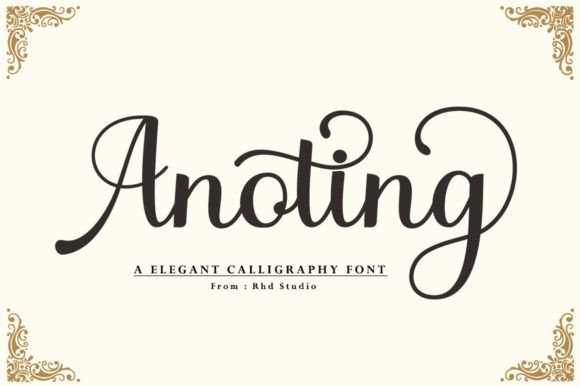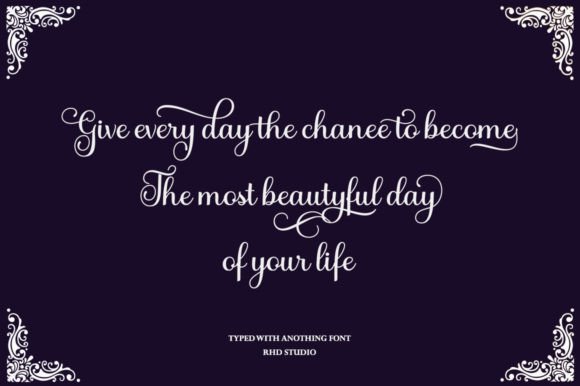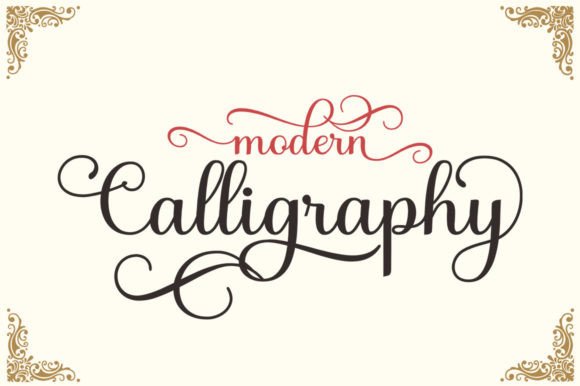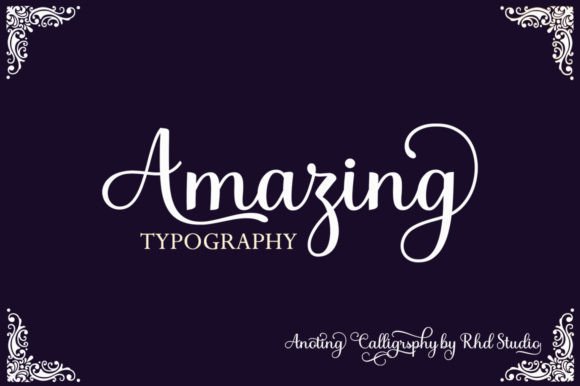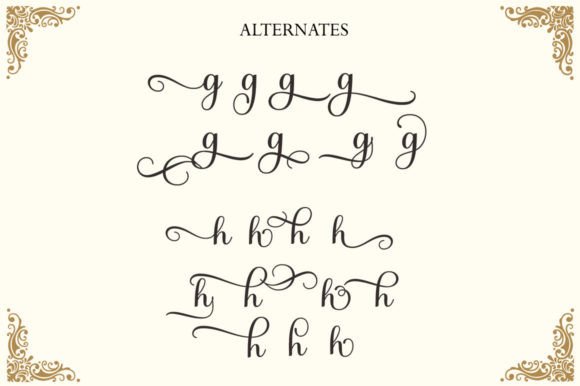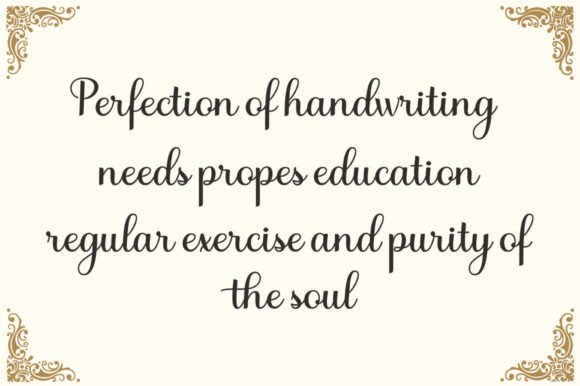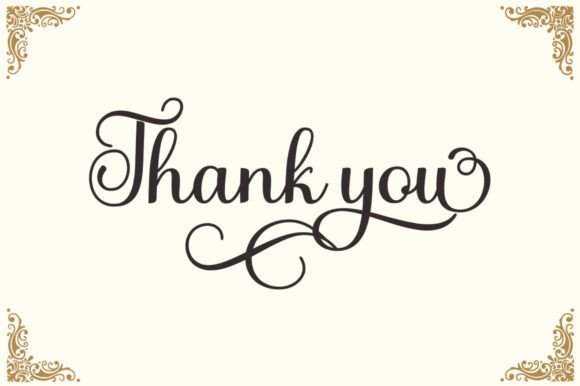
Anoting Font
About Anoting Font
Anoting Font Download introduces a bold and assertive script typeface designed to make your creations stand out. With its strong strokes and confident personality, Anoting adds a distinctive flair to any project. Whether you’re working on branding, social media, product packaging, or expressive headlines, this font commands attention and delivers visual impact.
Crafted with precision and artistic flair, Anoting blends style and substance. Its brush-like curves and expressive rhythm help bring an authentic hand-drawn feel to every design.
A Script Font with a Bold Identity
Anoting is not your average script font. It’s created for creatives who want their message to pop. The strong and dynamic flow of each letter makes it suitable for:
• Statement logos and branding projects
• Posters, flyers, and event promotions
• Apparel and merchandise designs
• Social media graphics and quotes
• Labels, tags, and product packaging
Its boldness doesn’t compromise its readability—on the contrary, it enhances it, even at small sizes or in complex compositions.
A major advantage of this font is its PUA encoding, which allows you to access all stylistic glyphs and swashes easily—even without advanced design programs. This ensures you can take full creative control, regardless of the tools you’re using.
Ideal for Strong, Artistic Visuals
Anoting’s confident look makes it ideal for projects that require personality and style. From modern logos to attention-grabbing social posts, the font adds sophistication and energy. Its thick strokes and natural script movement mimic hand-lettered artwork, making each design feel unique.
Pair it with minimalist sans-serif fonts for contrast, or use it as the centerpiece of your layout to highlight its full power. Its versatility allows it to blend well into branding kits, lifestyle blog headers, fashion labels, and more.
Whether you’re designing for print, web, merchandise, or social content, Anoting adapts effortlessly while delivering consistent visual strength.